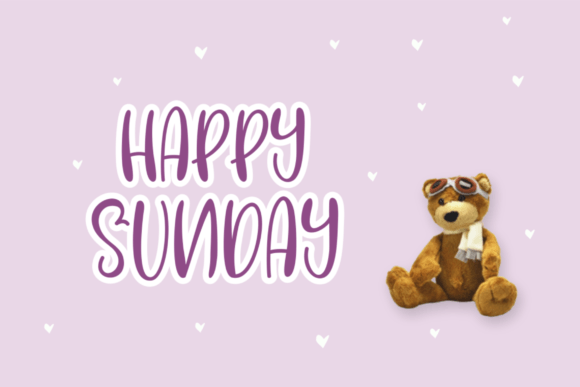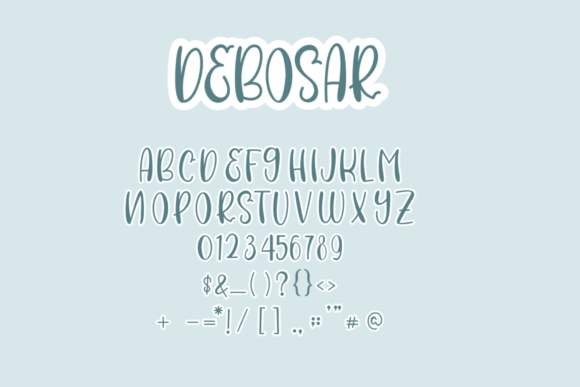
Introduction to Debosar Font
Debosar is a bold and authentic handwritten font suitable for any branding project like logo, t-shirt printing, export, and many more.
It will look outstanding in a wide range of contexts .
Key Features of Debosar Font
Why Choose Debosar Font?
Debosar Font offers exceptional quality and versatility, making it a valuable addition to your design toolkit. Whether you’re creating for personal projects or commercial use, Debosar Font delivers professional results.